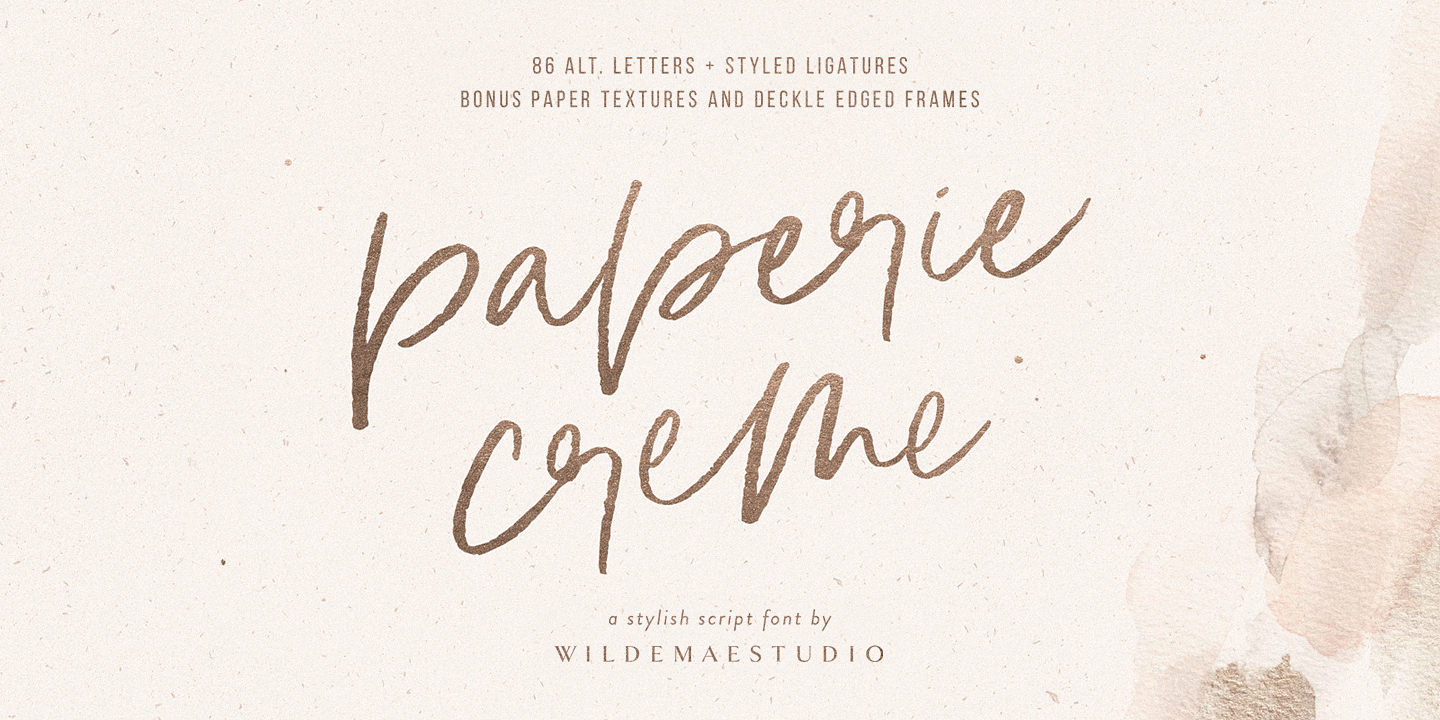
Paperie Creme is a hand drawn and script font published by Wilde Mae Studio.
Paperie Creme is a stylish, ultra-versatile, handwritten script font perfect for creating beautiful logos, signage, social media, blog posts, styled quotes, packaging, and more! Paperie Creme is flirty, carefree, and stylish + handcrafted with lots of love for your beautiful projects ♡
Coming to you with 86 styled ligatures & alternate letters to create a totally beautiful, authentic, hand lettered look + BONUS delicate fine art papers & beautiful deckle edged frames.
✓ Paperie Creme Script Font (otf, ttf) — Uppercase, lowercase, numbers, symbols, punctuation, 86 styled ligatures & alternate letters to create a totally beautiful, authentic, hand lettered look, and multilingual support. Includes 34 alternate letters (complete alternate lowercase set + extras) and 52 styled ligatures (86 total).